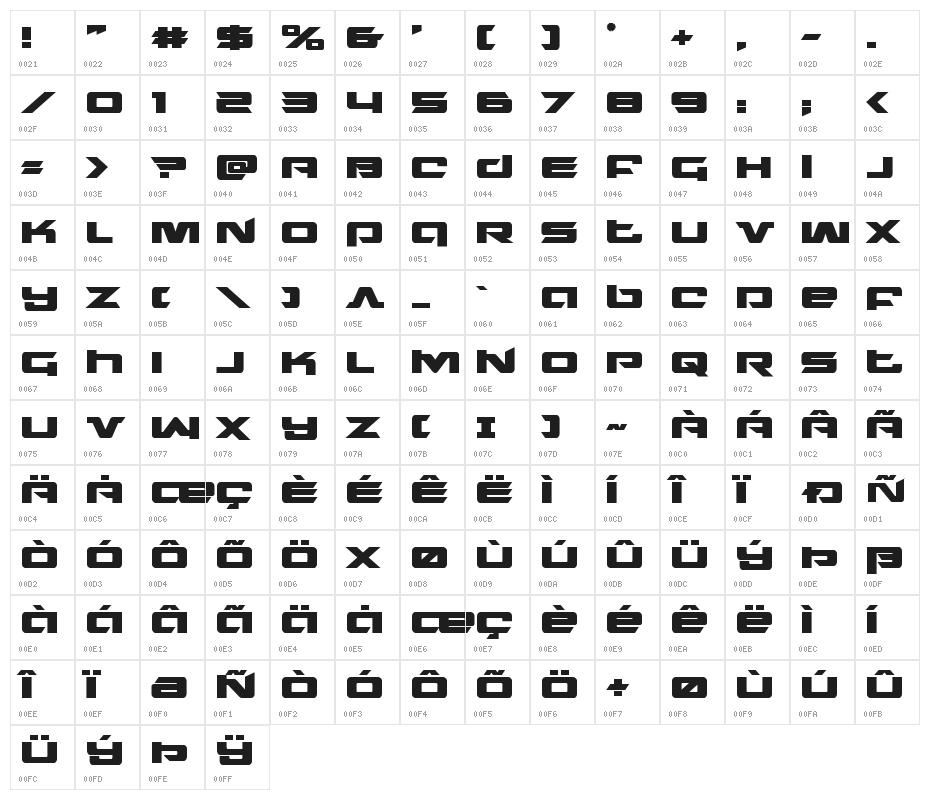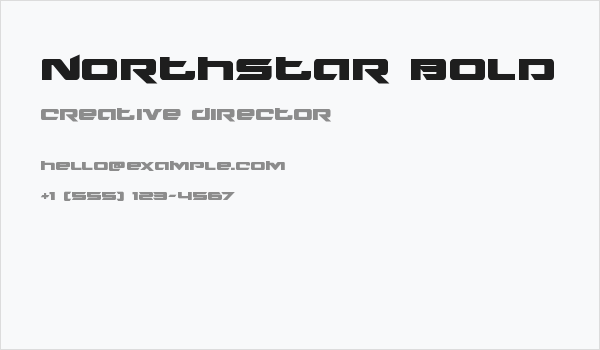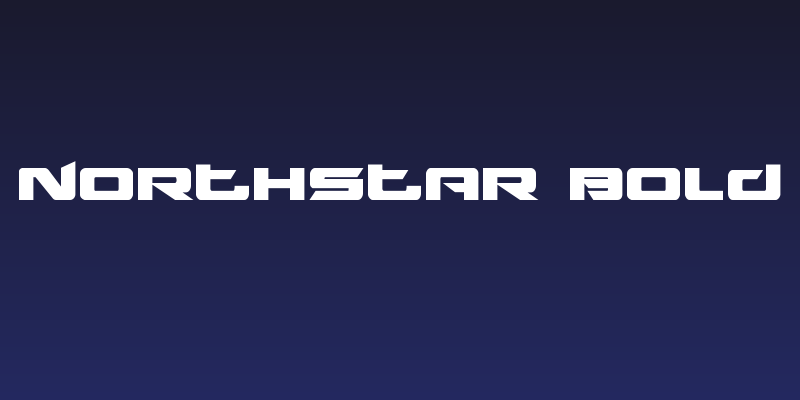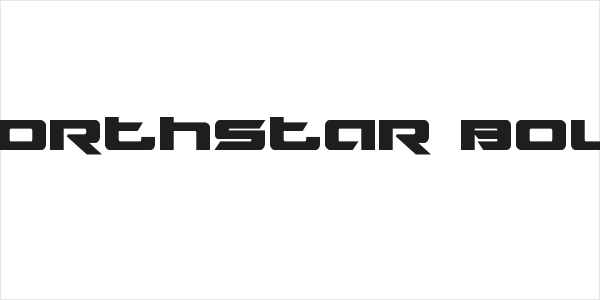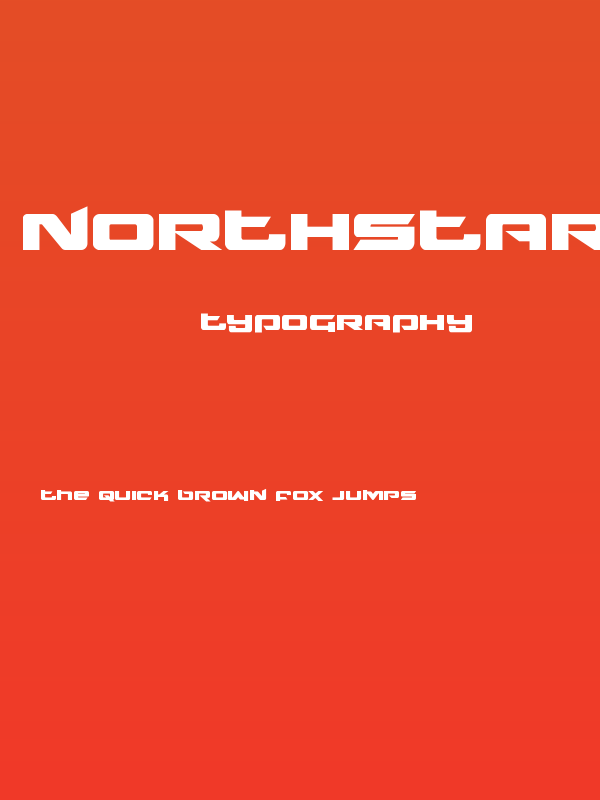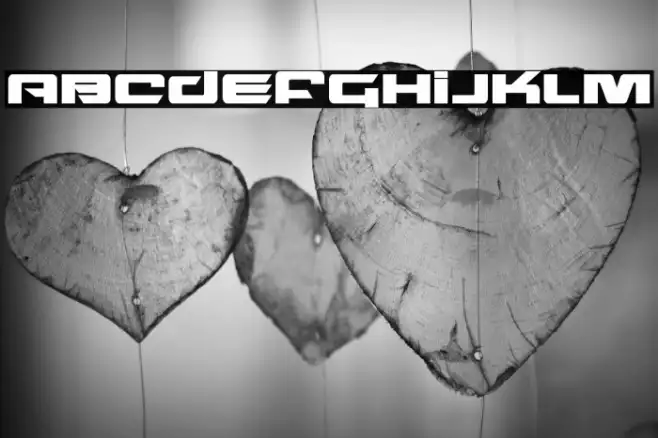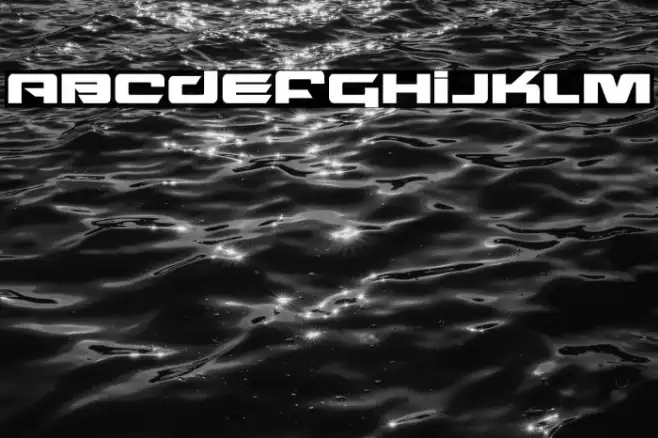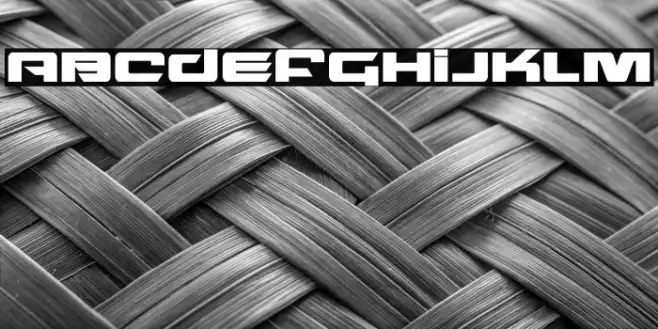
Northstar Bold Font
Northstar Bold Description
This font features a bold and futuristic design with angular, geometric shapes that give it a strong, impactful presence. The characters are constructed with sharp edges and a uniform thickness, creating a cohesive and modern look. The uppercase and lowercase letters maintain a consistent style, while the numbers and special characters complement the overall aesthetic. This font is ideal for projects that require a bold statement and a contemporary feel, making it suitable for technology-related themes or modern branding.
| Proposed Projects | Ideal for technology branding, modern posters, video game titles, and futuristic designs. |